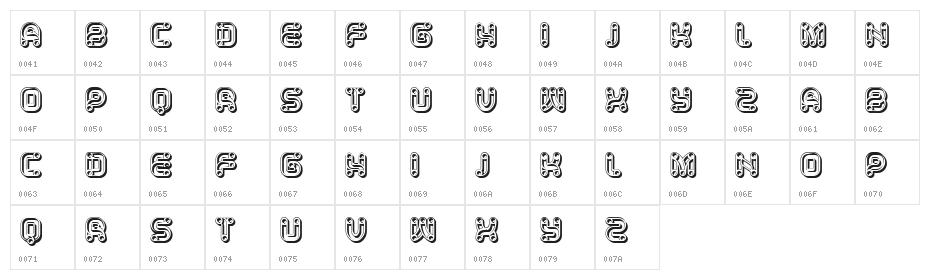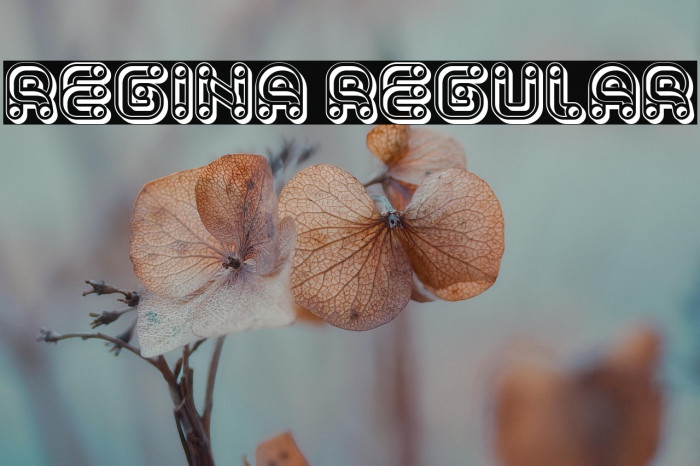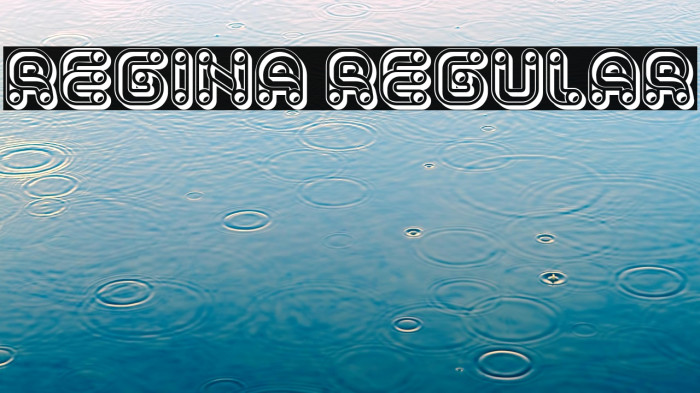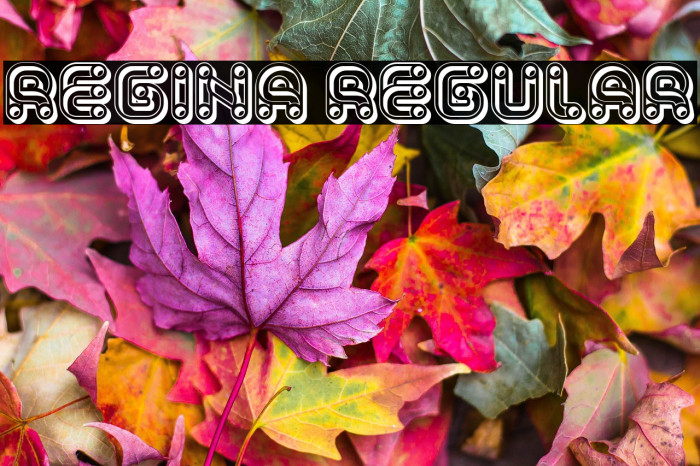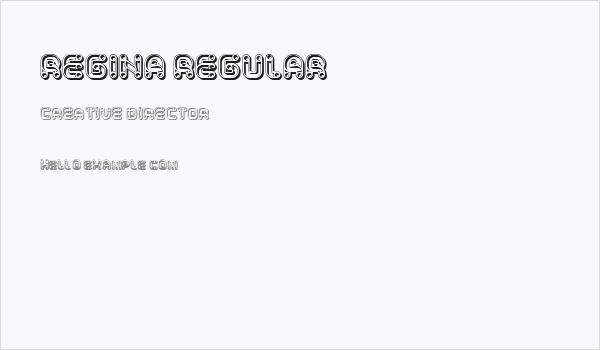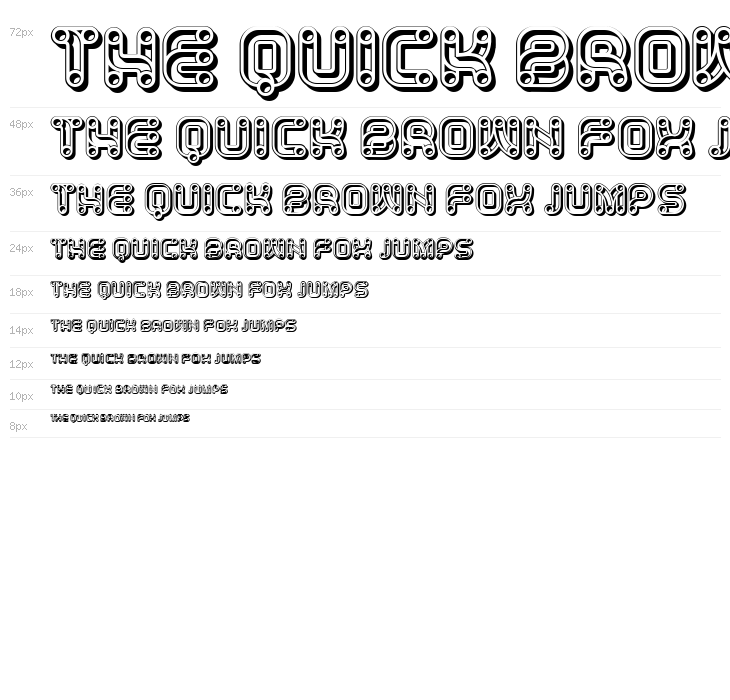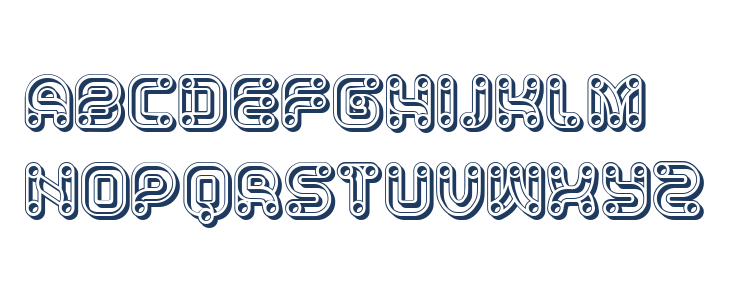
Regina Regular Font
Regina Regular Description
This font features a unique, decorative style with a futuristic and geometric appearance. Each character is composed of multiple concentric lines, creating a layered effect that adds depth and dimension. The design is bold and eye-catching, making it ideal for projects that require a strong visual impact. The characters are evenly spaced, with a consistent width throughout, contributing to a balanced and harmonious look. The font's intricate details and modern aesthetic make it suitable for a variety of creative applications.
| Proposed Projects | Ideal for branding, posters, album covers, and any project needing a striking, modern look. |